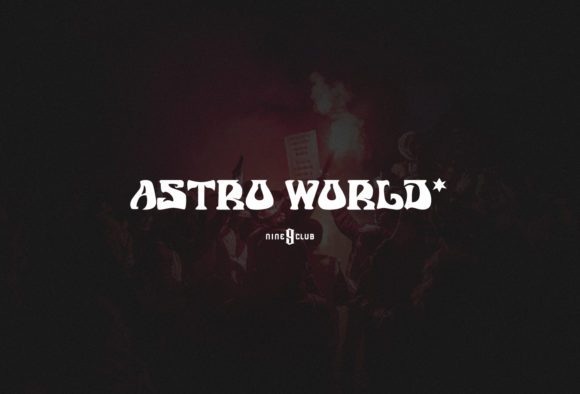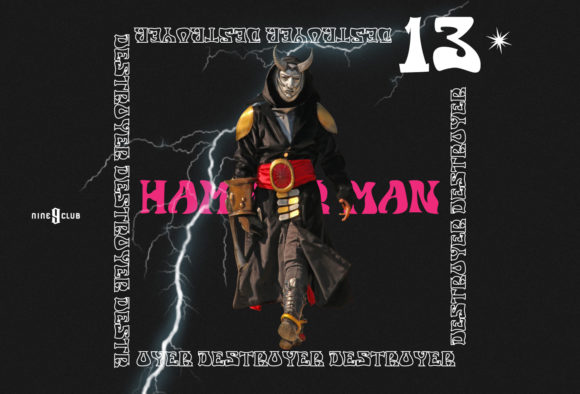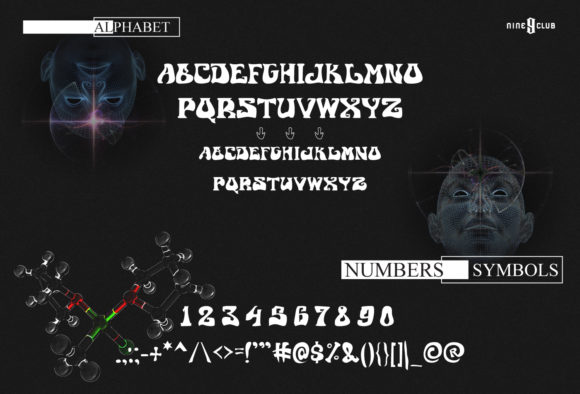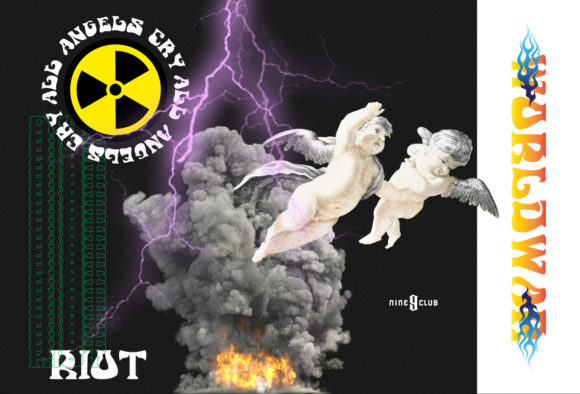
Astro World Font
About Astro World Font
Astro World is a unique modern handwritten font with a stylish appeal. Use it for any design project that requires a personalized appearance!